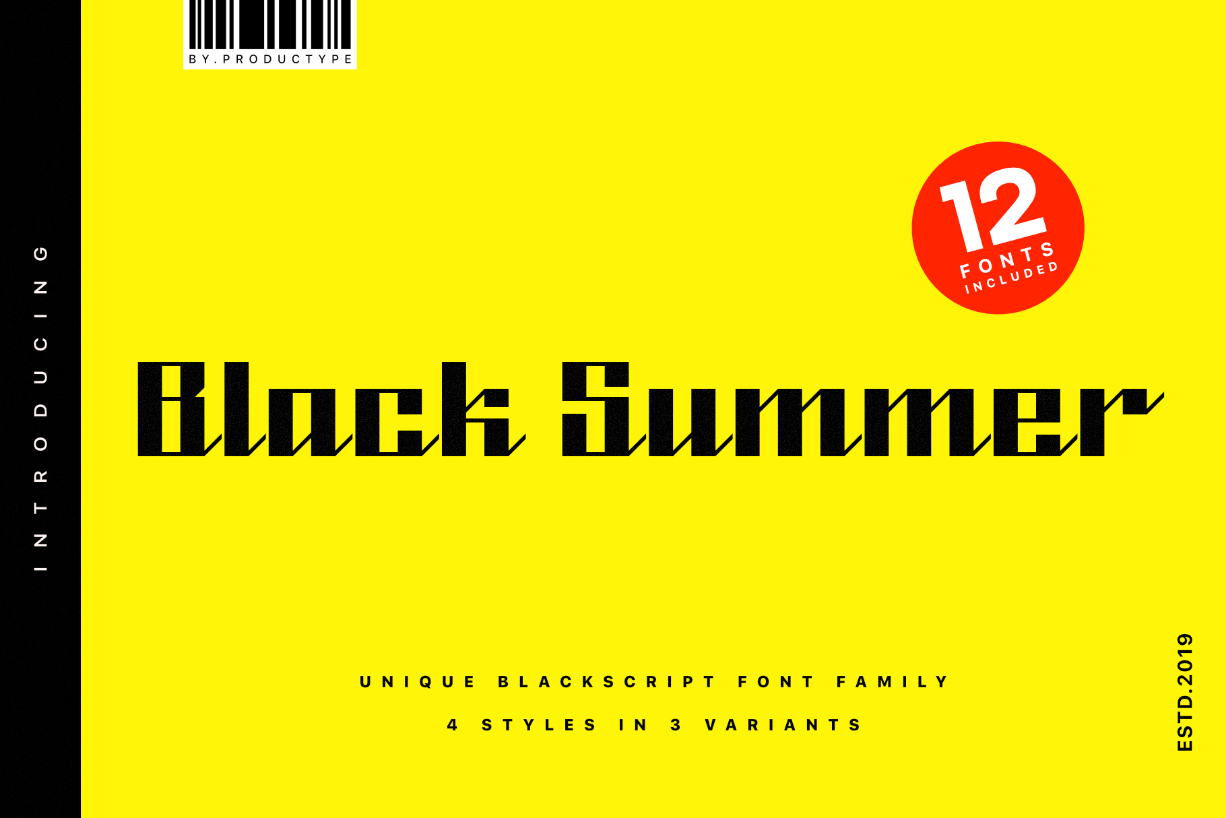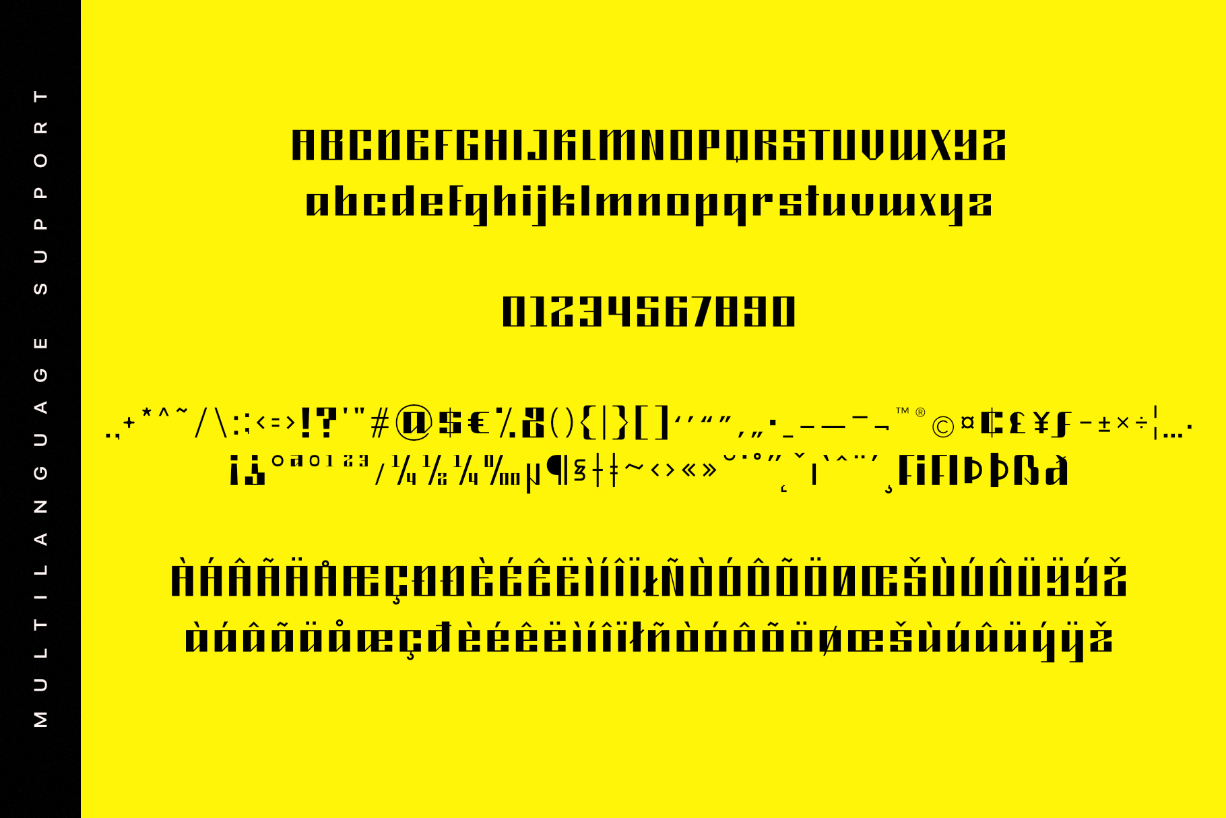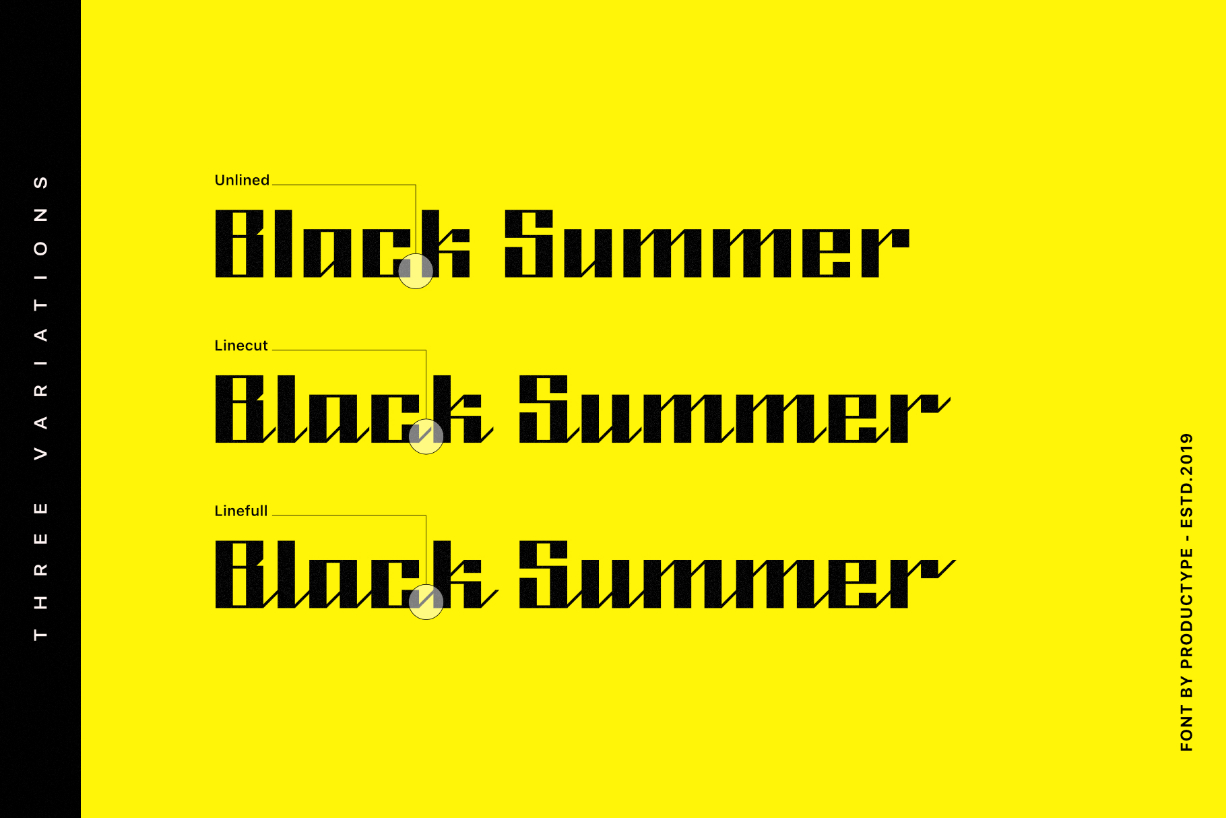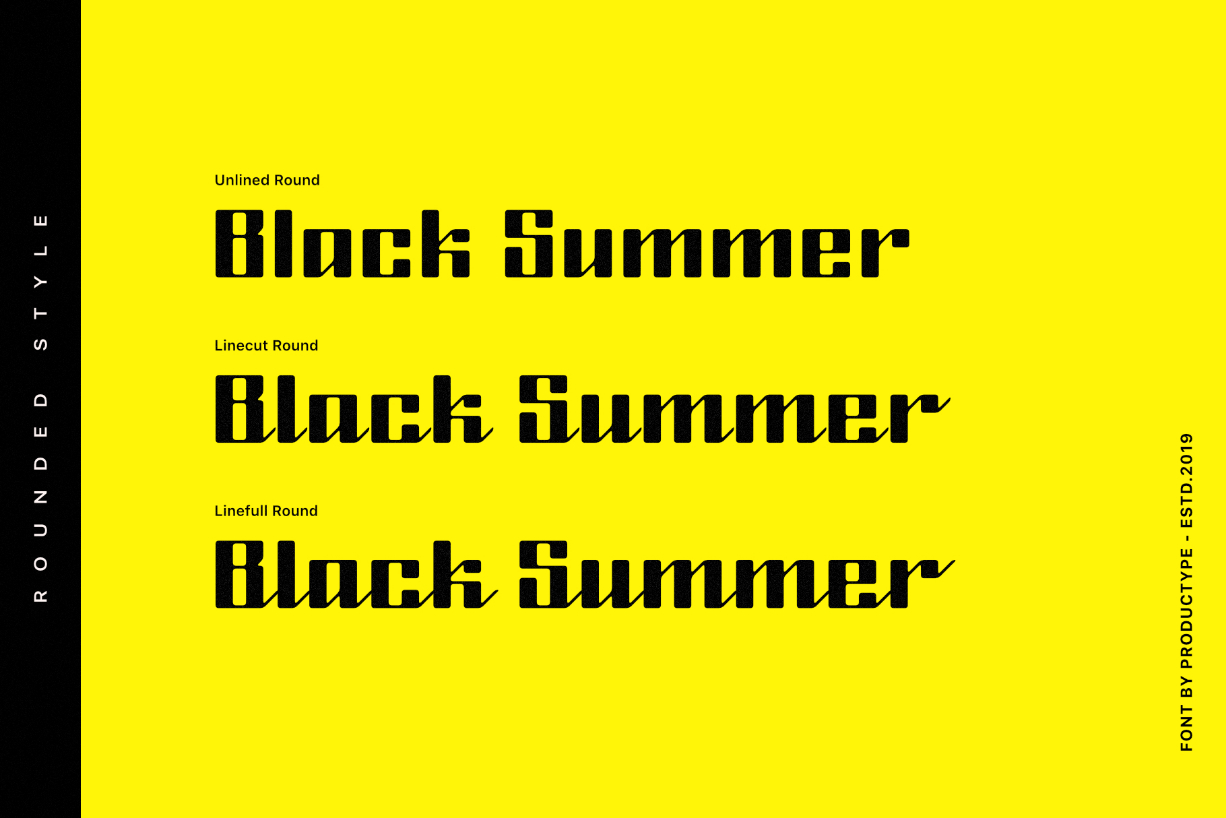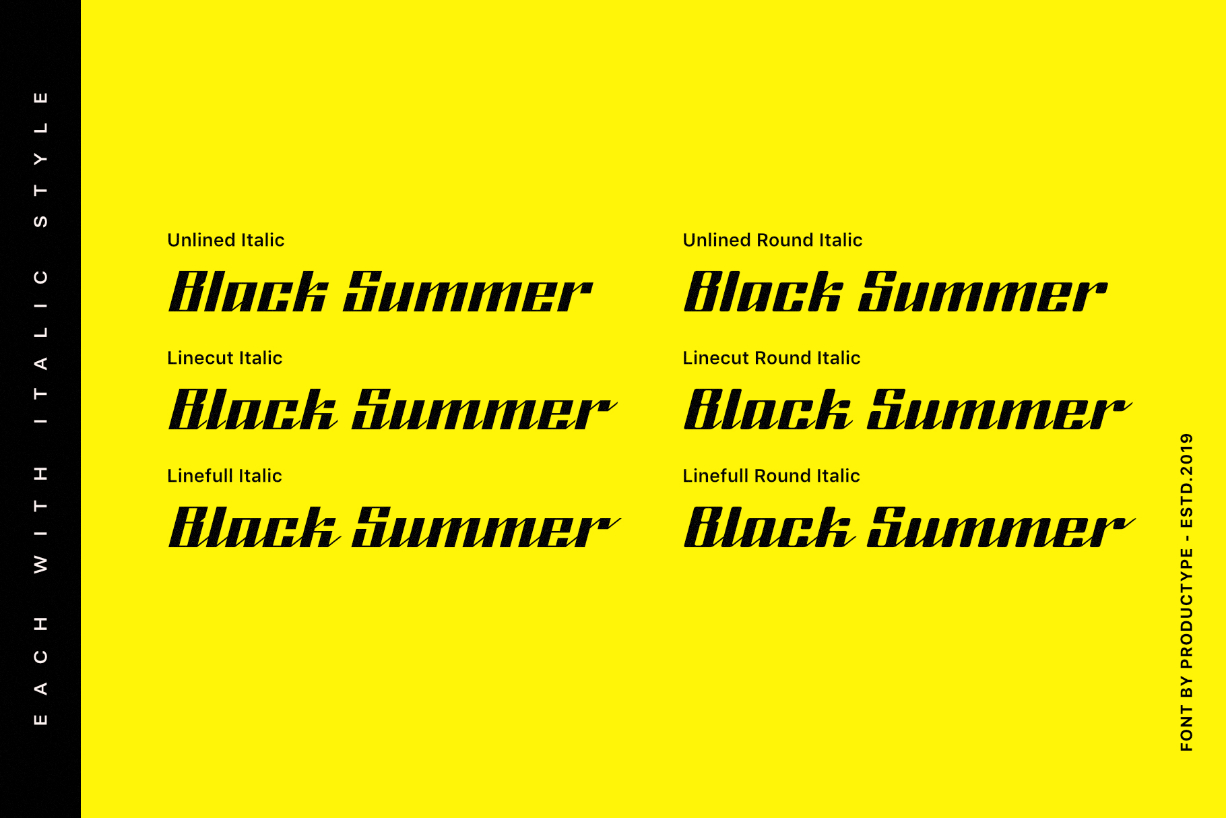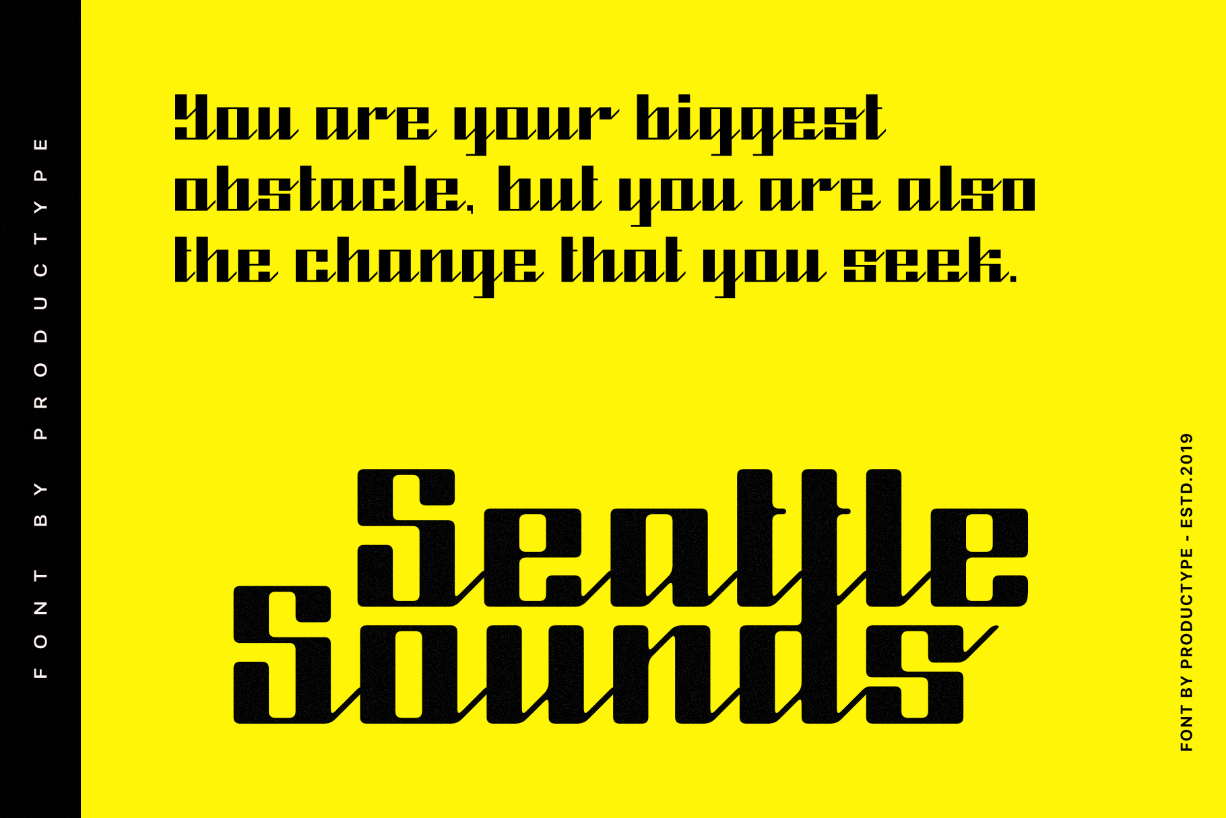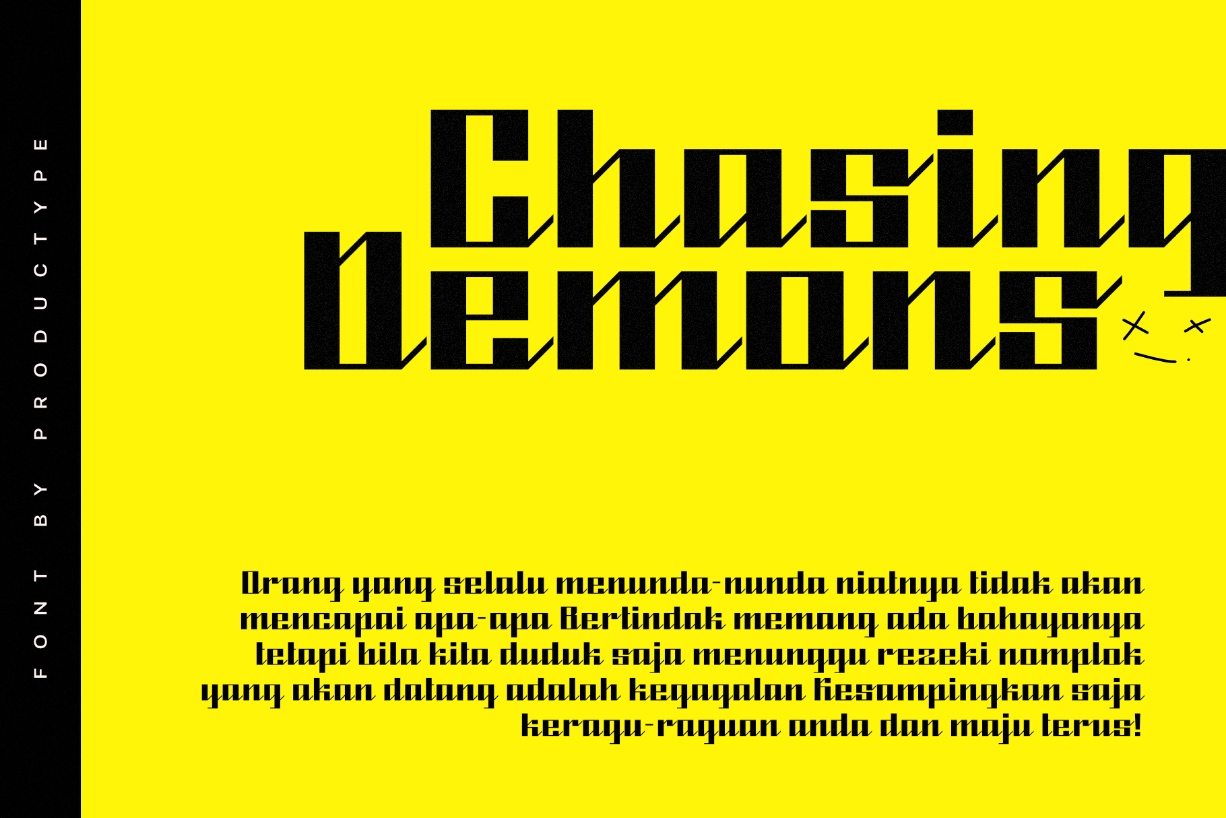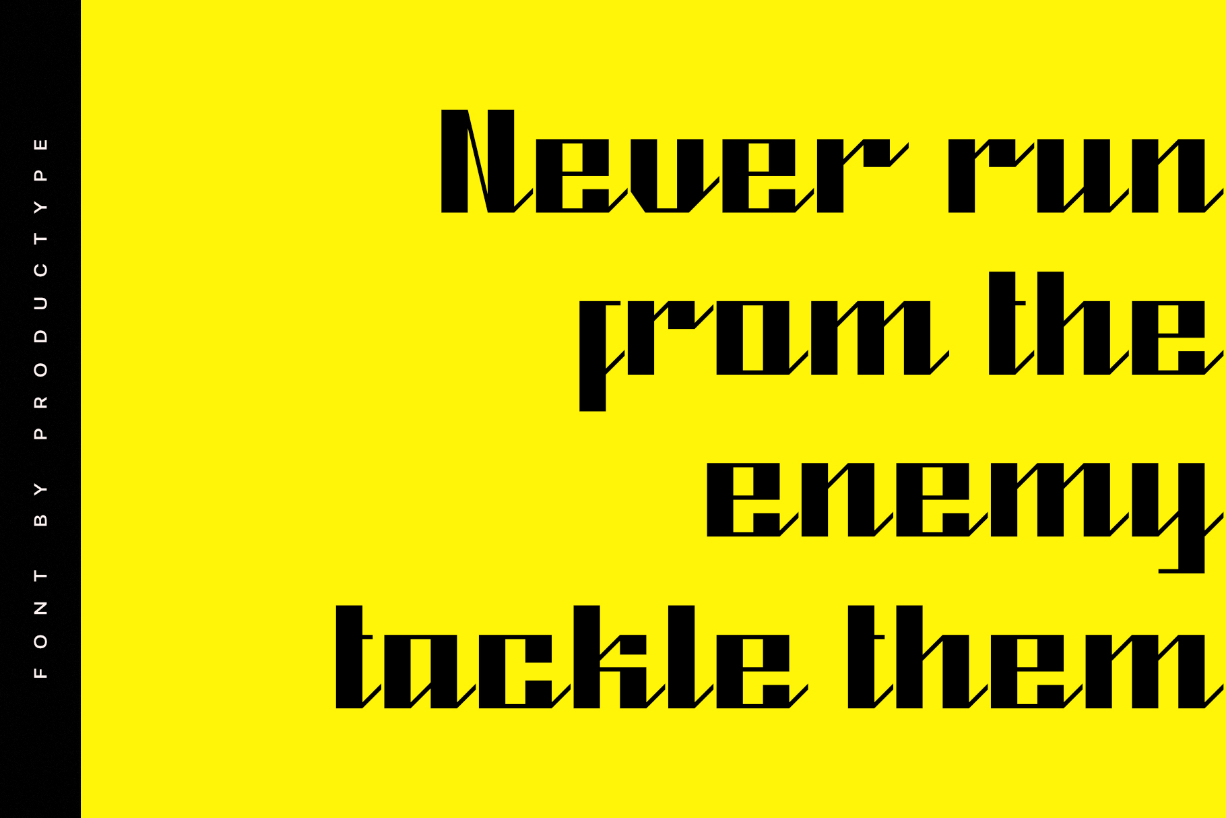
Black Summer Family Font
About Black Summer Family Font
Black Summer is a fun and incredibly stunning blackletter font family with a contemporary twist. It will add a bold feel to any design project!